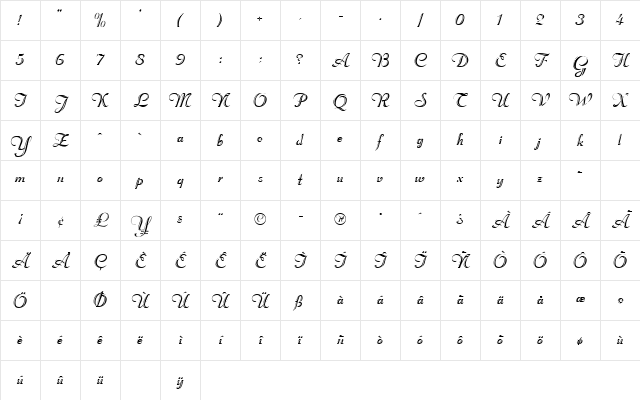
Rechtman-Script Regular Free Font
Rechtman-Script Regular
Design Context for Rechtman-Script
Rechtman-Script flows with the natural rhythm of handwritten lettering, making it ideal for designs that call for warmth and personal expression.
Font Pairing: Combine Rechtman-Script with a simple geometric sans for maximum contrast - the tension between flowing curves and clean structure is a classic typographic pairing.
Pro Tip: Use Rechtman-Script for short runs of text - names, titles, or taglines. Extended body copy in script faces tires the eye quickly.